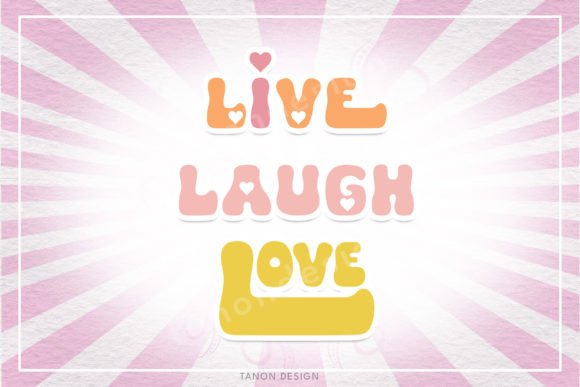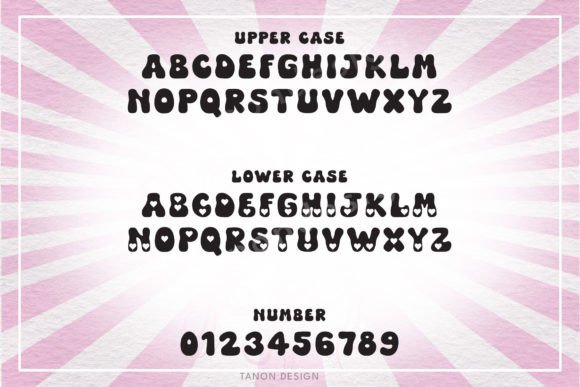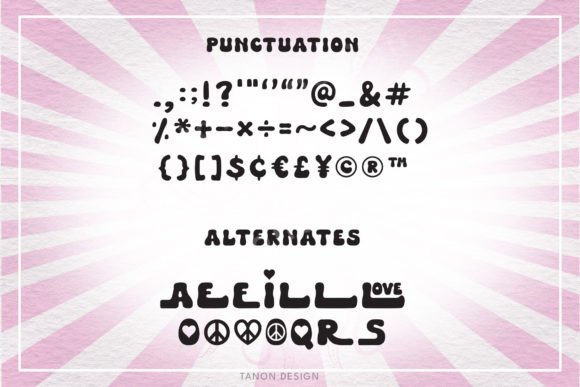
Introduction to Lovely Retro Font
Introducing β€œLovely Retro” fonts a beautiful vintage retro Valentine font.
It will look fantastic on all your project designs including t-shirt designs, mug designs, digital designs, crafts, cards, and any projects .
Key Features of Lovely Retro Font
Why Choose Lovely Retro Font?